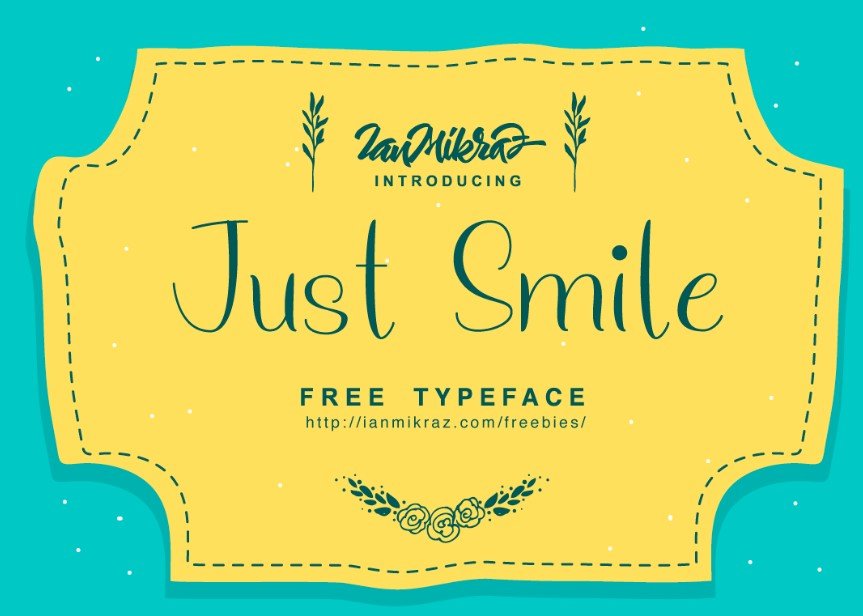
Just Smile Typeface Extraordinary typography, I used to be very satisfied to peer it, and i want to introduce to you on right here immediately.
Just smile typeface designed and the percentage by using ianmikraz. Just smile is appropriate for clothing logo, any greeting cards, portray design fashion, or any layout that desires natural and private contact.
In conjunction with the narrow educational and fancy texture, it nicely-appropriate for non-stop analyzing.
As well as even at the floor of the spacecraft. Moreover, it can also be applied for card printing like wedding, invitation, and birthday cards.